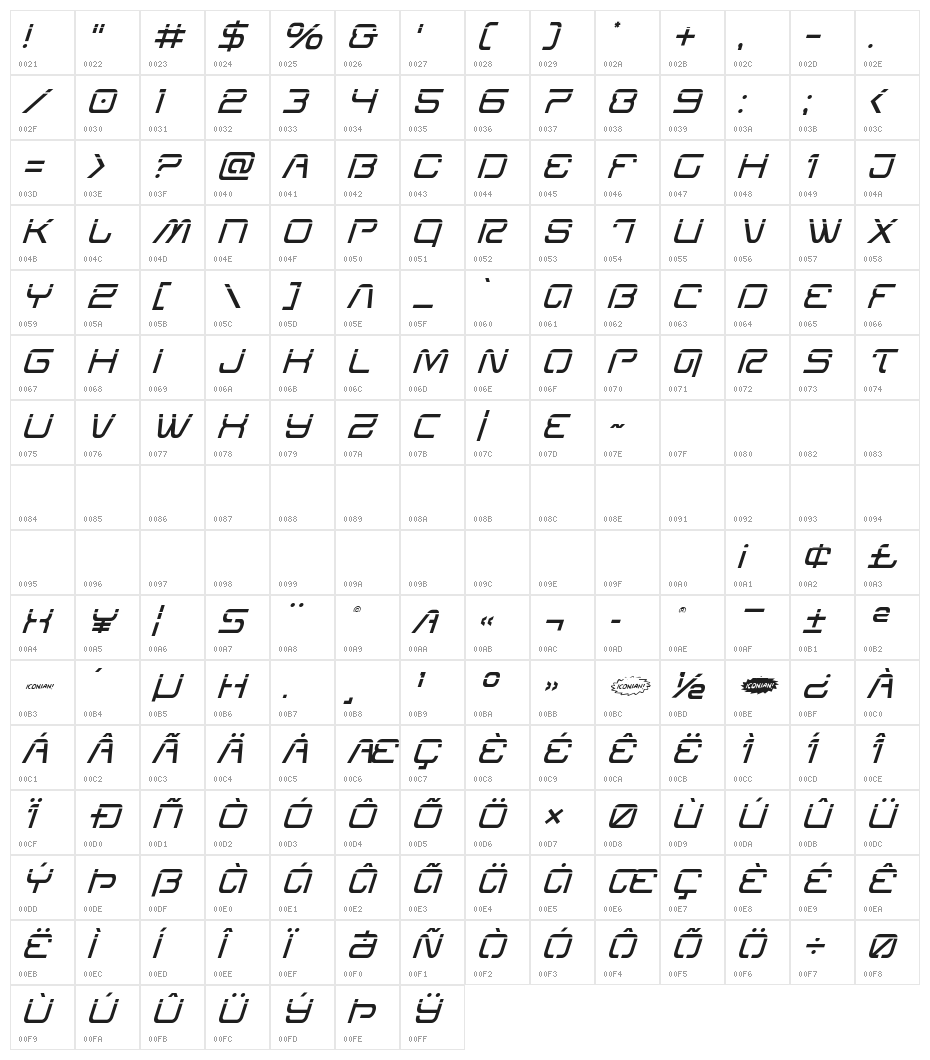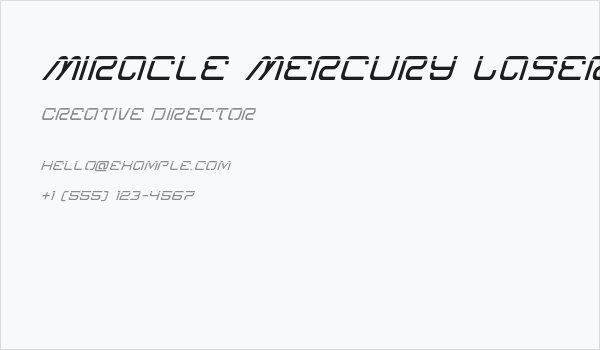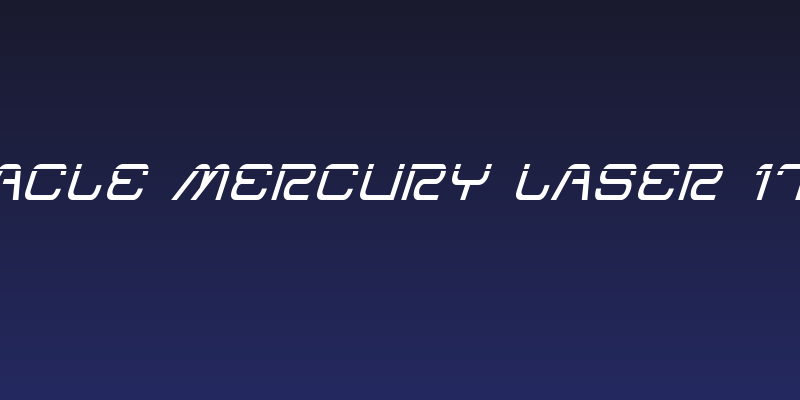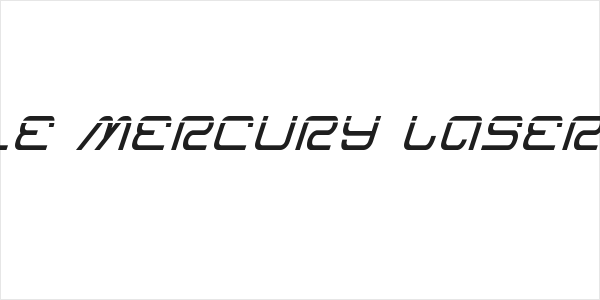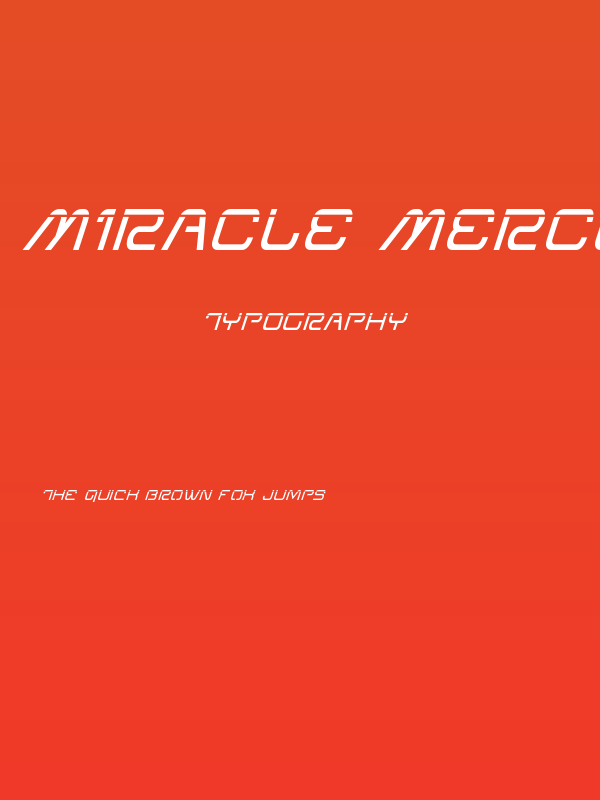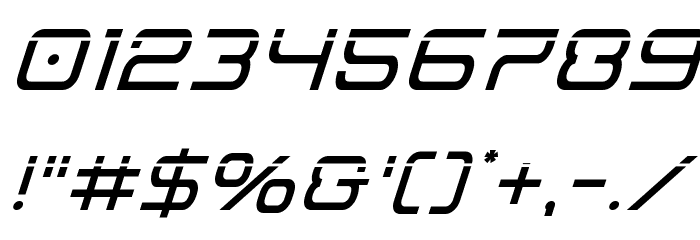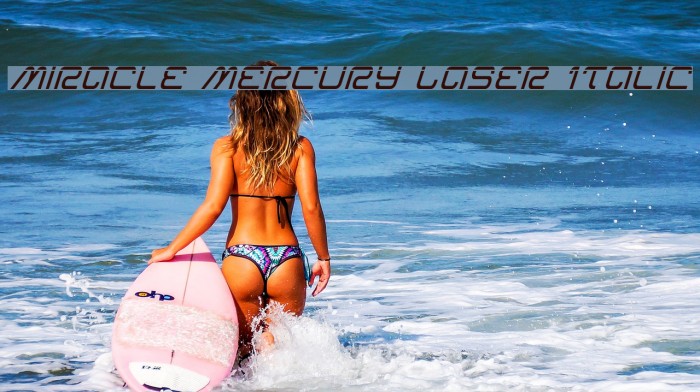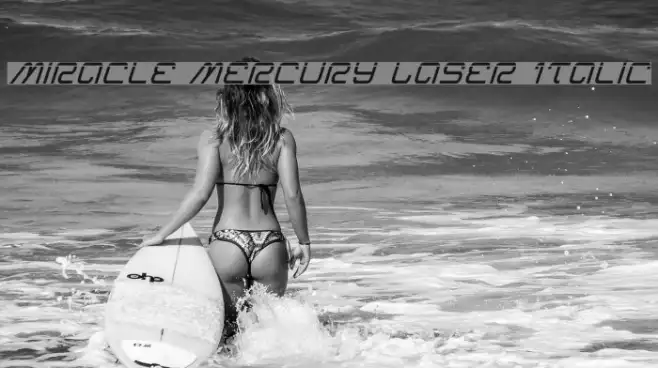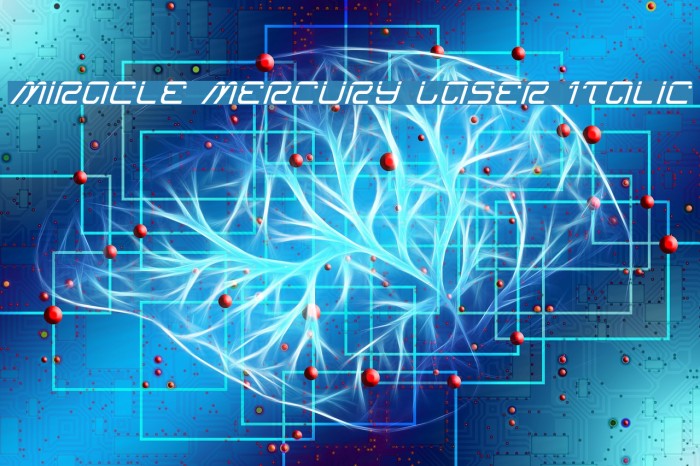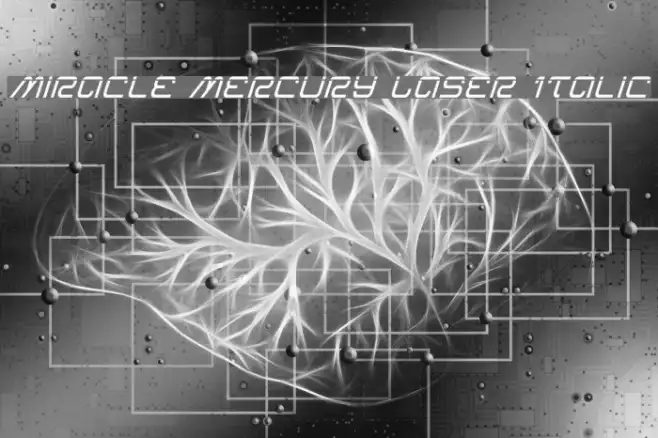
Miracle Mercury Laser Italic Font
Miracle Mercury Laser Italic Description
This font features a futuristic and sleek design, characterized by its italicized and angular letterforms. The strokes are consistent in thickness, giving it a uniform appearance. The characters are slightly condensed, enhancing the modern and dynamic feel. The sharp angles and clean lines contribute to its high-tech aesthetic, making it suitable for projects that require a contemporary and cutting-edge look. The font includes a full set of uppercase and lowercase letters, numerals, and a variety of special characters, ensuring versatility in usage.
| Width | Condensed |
| Overall Style | Futuristic |
| Use Case | Logos, Headlines, Posters |
| Proposed Projects | Ideal for technology branding, sci-fi posters, video game titles, and modern advertising. |